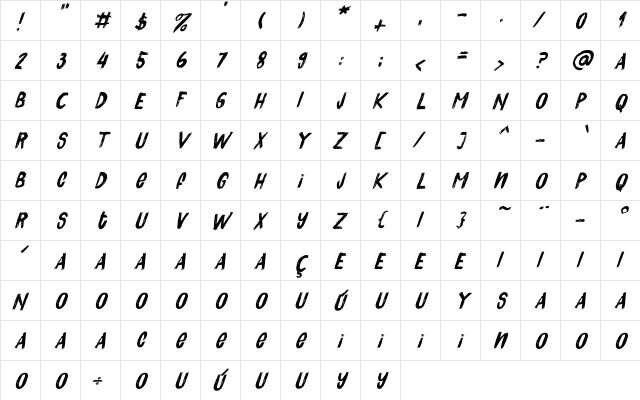
Quick Pick I Italic
Design Context for Quick Pick I Typeface
Quick Pick I takes a measured approach to typography — its balanced proportions and neutral character make it a reliable workhorse for both digital and print work. The dynamic lean of this cut emphasises speed and emphasis in any layout.